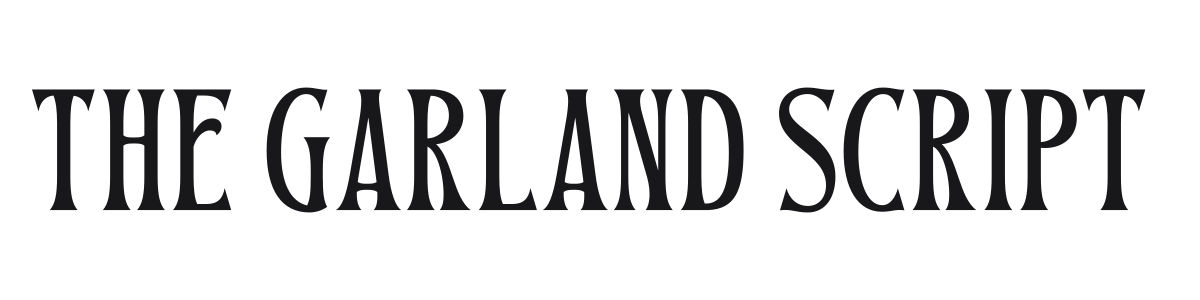
The Garland Script
The Garland Script is a condensed ornate serif with extreme stroke contrast and Art Nouveau-inflected detailing. Sharply cut wedge serifs, pointed finials, and inline decorative notches give it a theatrical, vintage quality that stands out at large sizes. It sits comfortably in heritage branding, editorial headers, and anywhere a touch of dramatic elegance is needed.